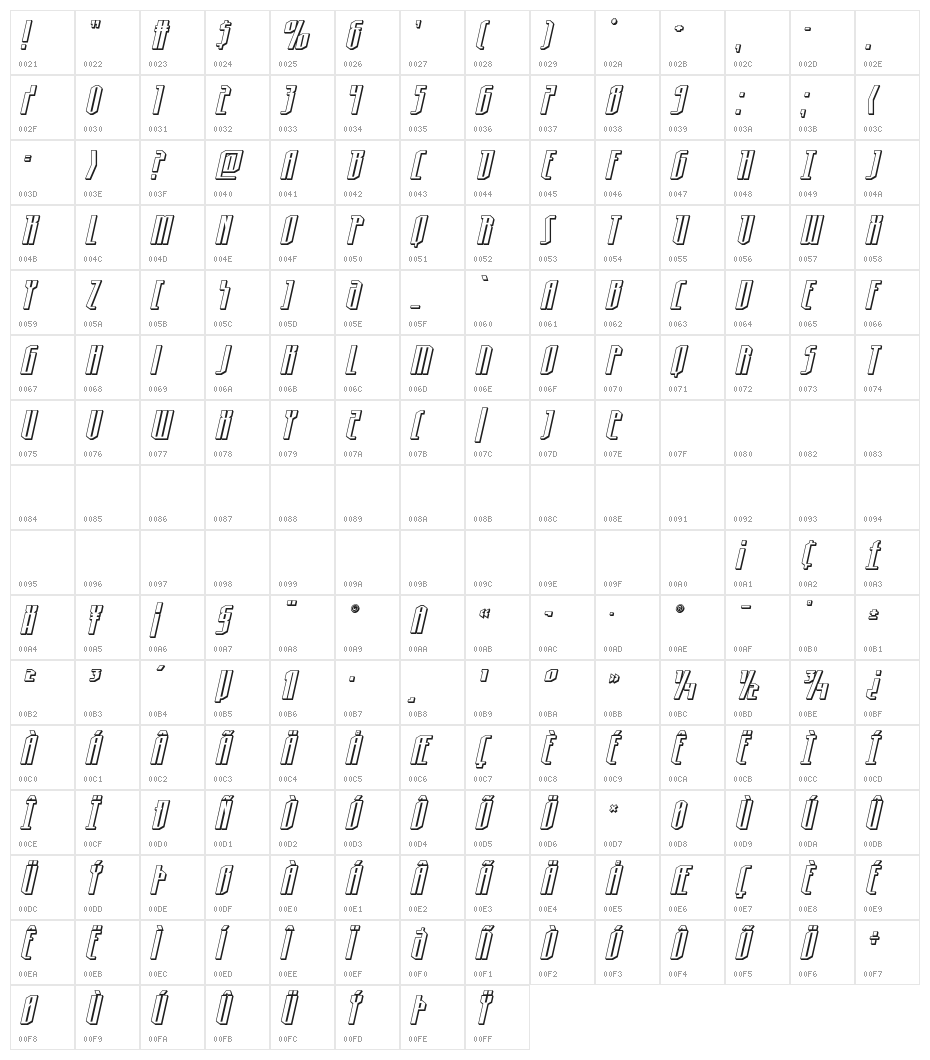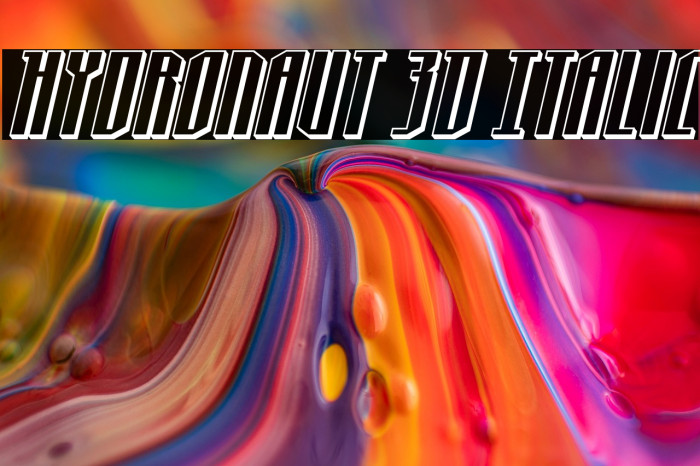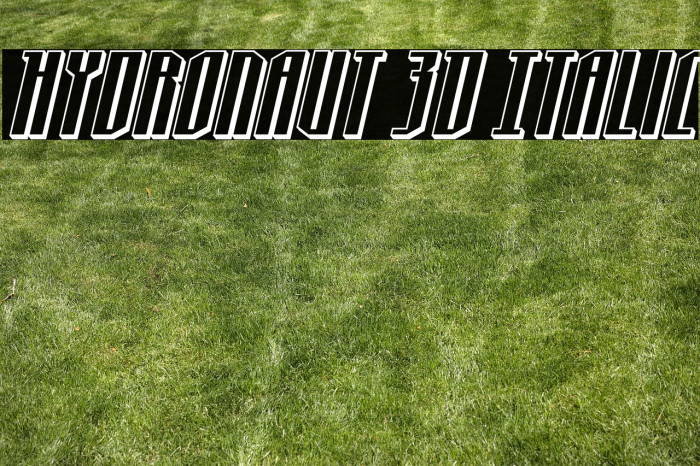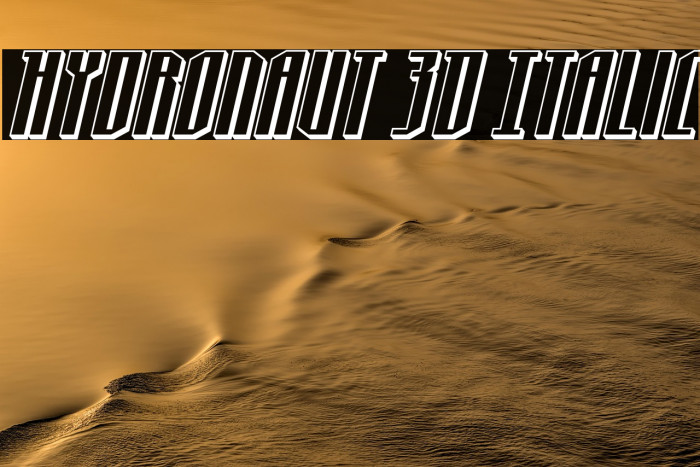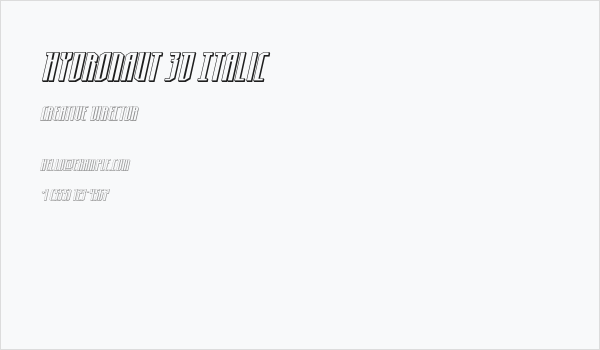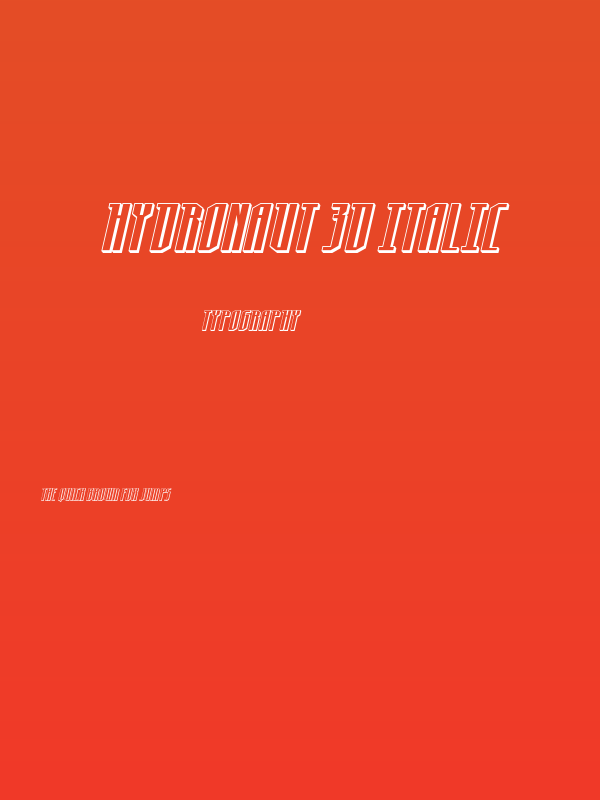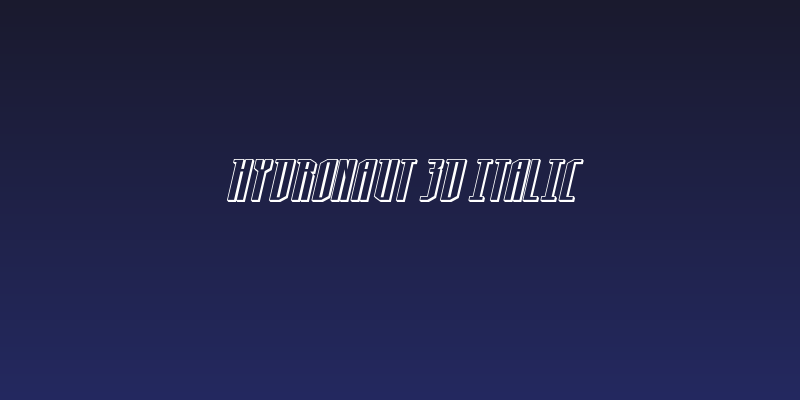
Hydronaut 3D Italic Font
Hydronaut 3D Italic Description
This font features a bold, three-dimensional design with italicized characters, creating a dynamic and futuristic appearance. The letters are outlined with a shadow effect, enhancing the 3D illusion and giving each character a sense of depth. The style is consistent across uppercase and lowercase letters, as well as numbers and special characters, maintaining a cohesive look. The angular and geometric shapes of the characters contribute to a modern and edgy aesthetic, making it suitable for projects that require a strong visual impact.
Proposed ProjectsIdeal for video game titles, sci-fi movie posters, tech branding, and futuristic event flyers.